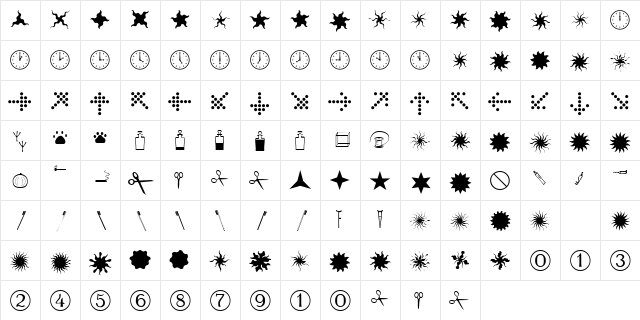
IngDingLeftover Regular
Design Context for IngDingLeftover
IngDingLeftover is a composed and adaptable typeface that performs quietly and consistently across a wide range of design contexts.